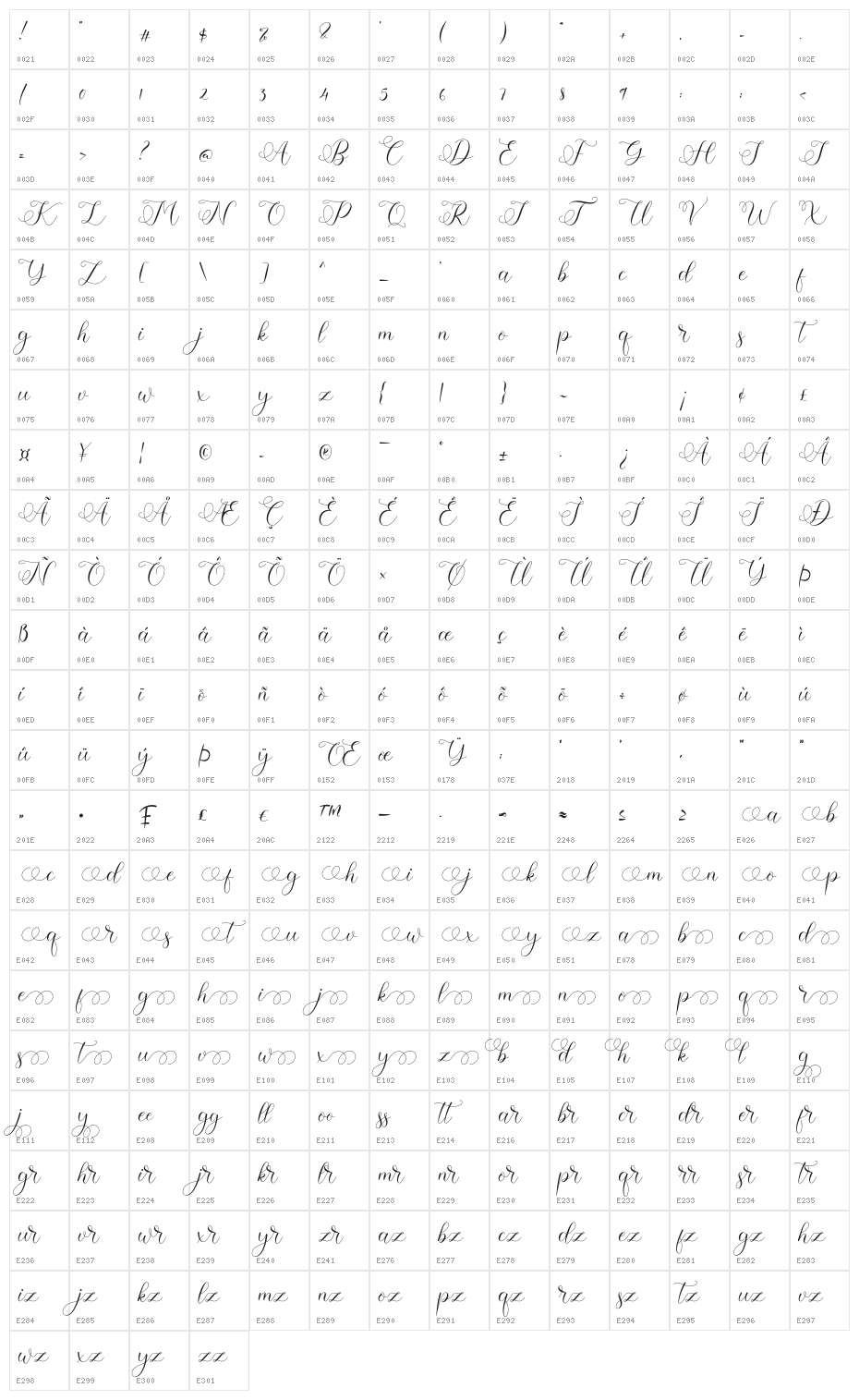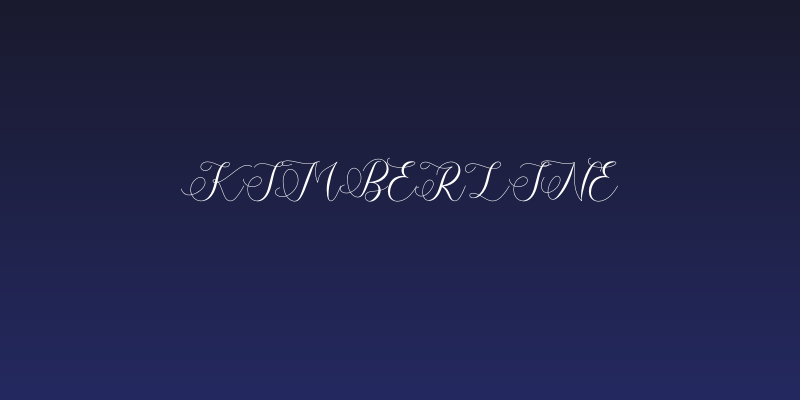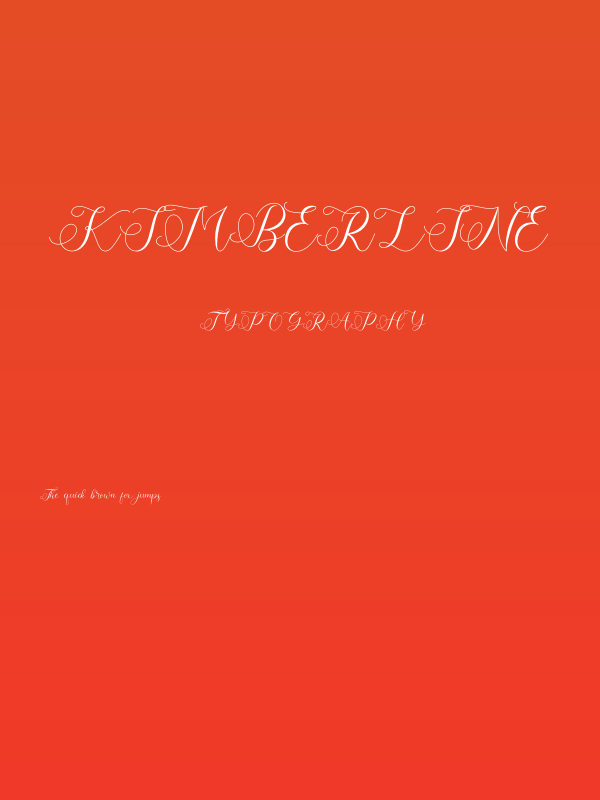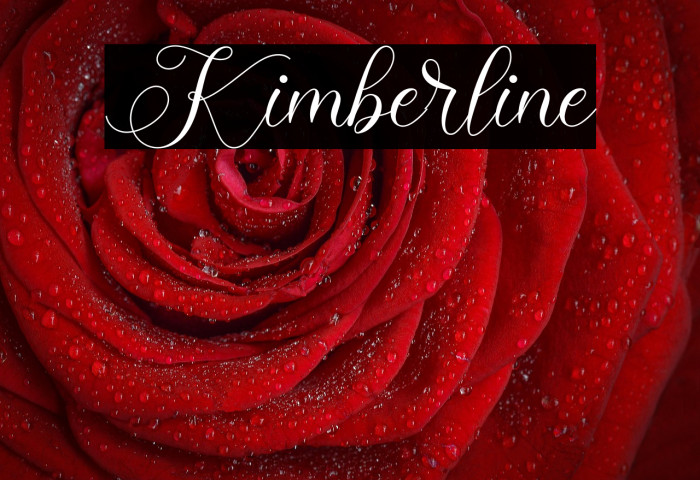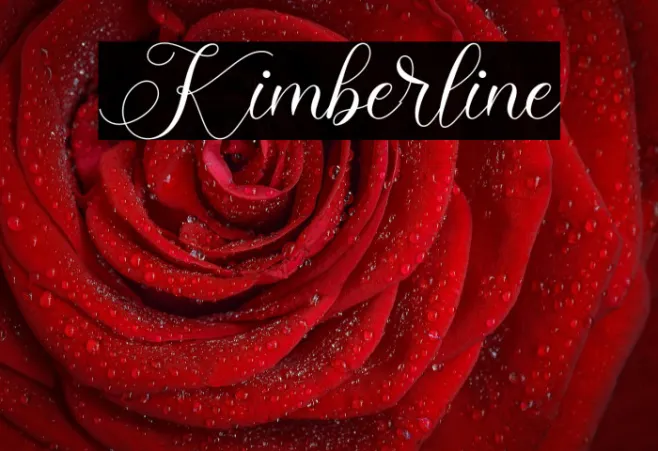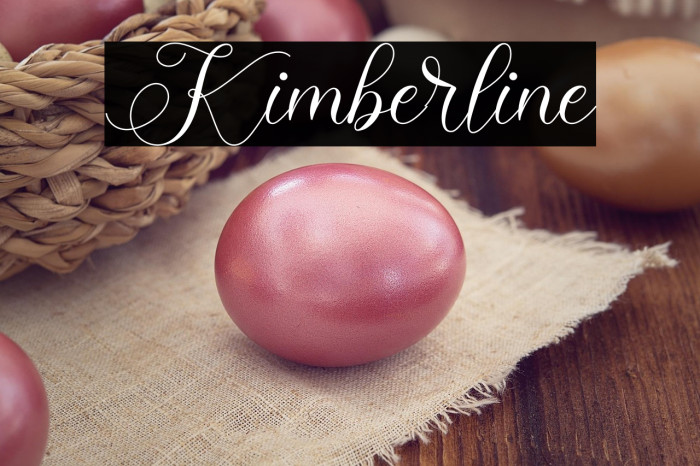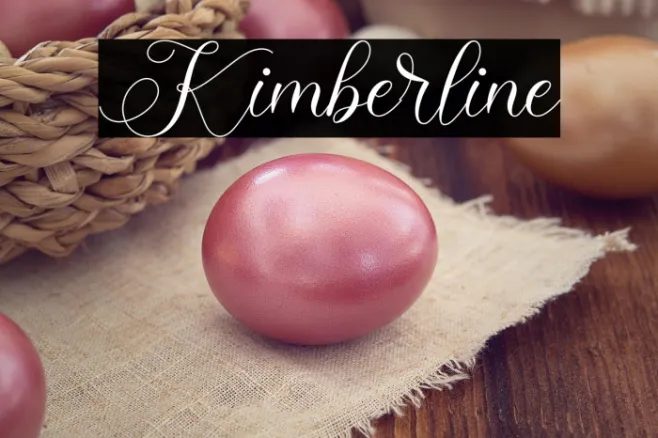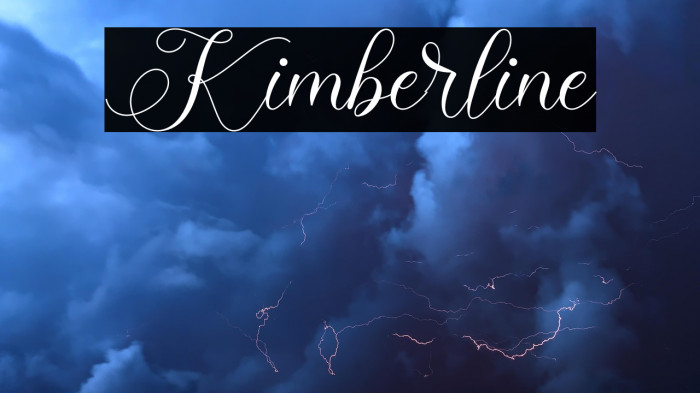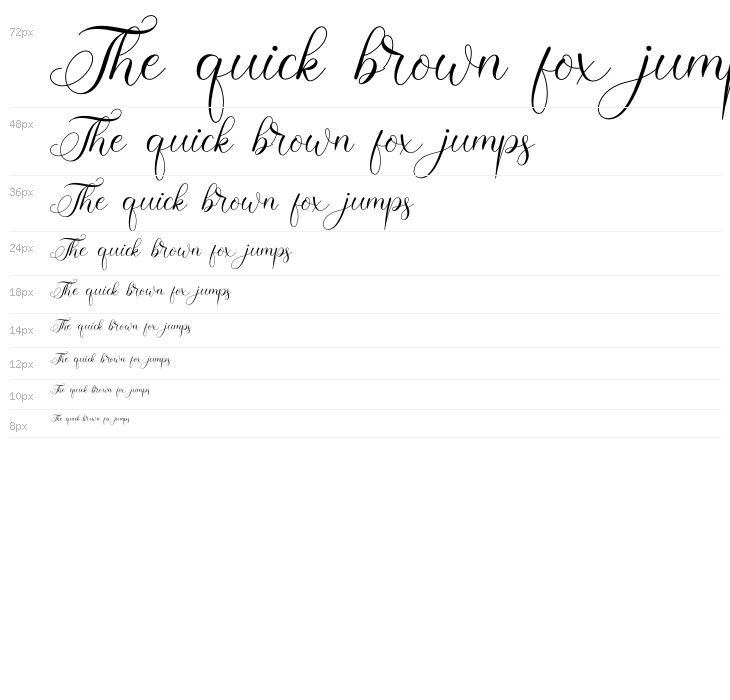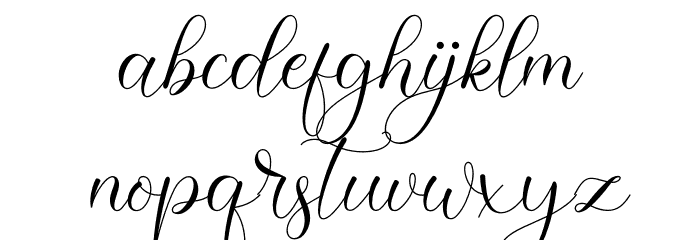
Kimberline Font
Kimberline Description
This elegant script font features intricate, flowing letterforms with delicate loops and swashes. The uppercase letters are particularly ornate, showcasing a high level of detail and sophistication. The lowercase letters maintain a graceful continuity, with smooth transitions and a harmonious balance. The numerals are stylish yet readable, complementing the overall aesthetic. Special characters are designed with the same attention to detail, making this font suitable for decorative purposes. The font's thin strokes and high contrast give it a refined and luxurious appearance, ideal for formal invitations, branding, and high-end product packaging.
| Use Case | Invitations, Branding, Decorative Text |
| Proposed Projects | Ideal for wedding invitations, luxury branding, elegant stationery, and decorative headlines. |